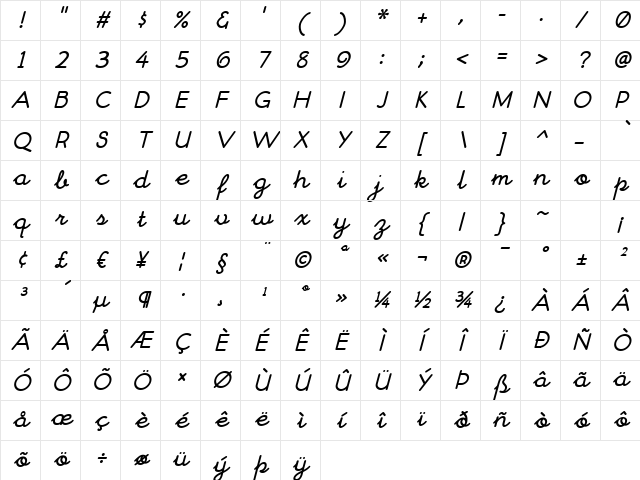
ChitownScript Italic
Foundry: HT
Designer: HT
ChitownScript Family
Design Context for ChitownScript
ChitownScript flows with the natural rhythm of handwritten lettering, making it ideal for designs that call for warmth and personal expression.
Font Pairing: Combine ChitownScript with a simple geometric sans for maximum contrast - the tension between flowing curves and clean structure is a classic typographic pairing.
Pro Tip: Use ChitownScript for short runs of text - names, titles, or taglines. Extended body copy in script faces tires the eye quickly.
Who designed the ChitownScript Italic font?